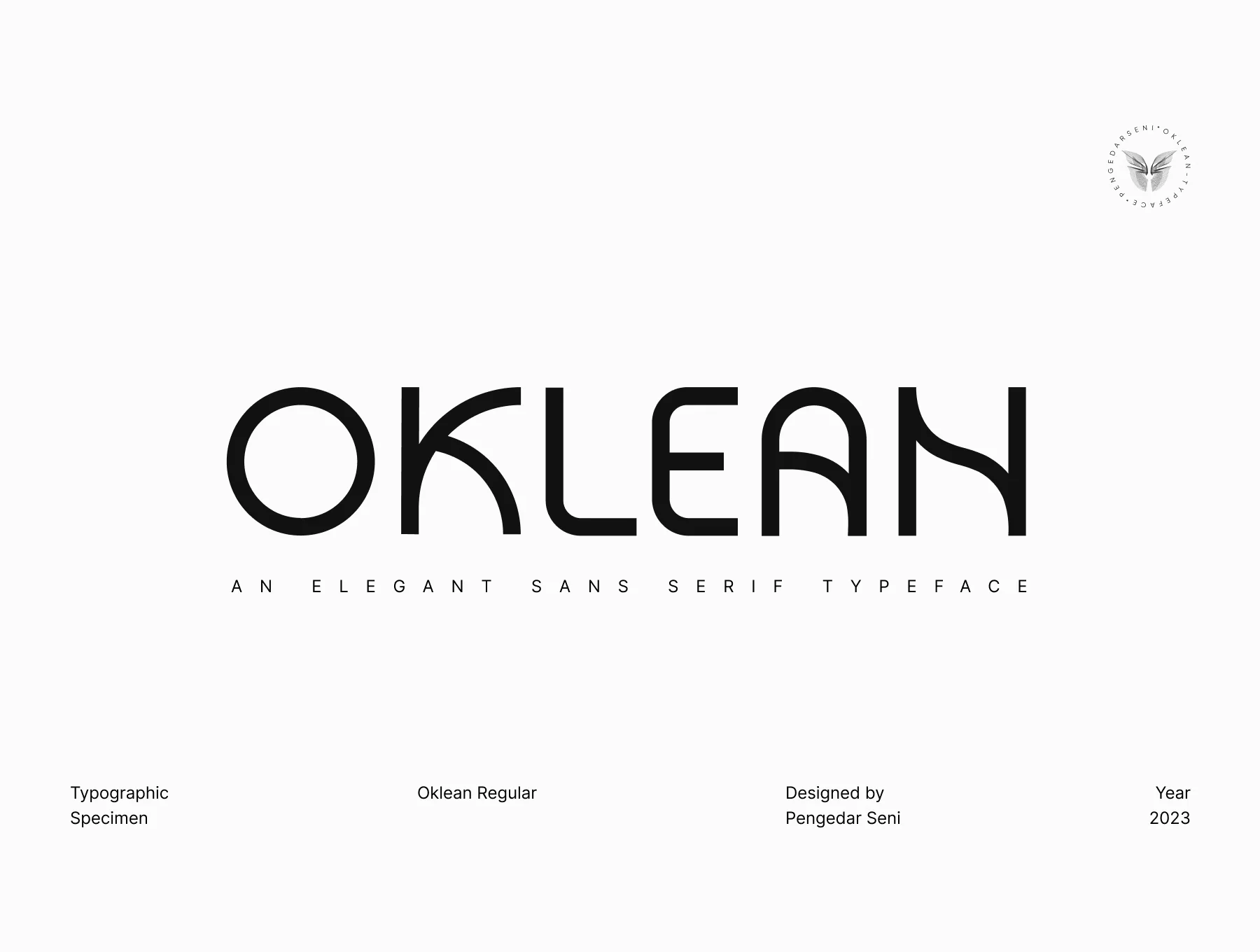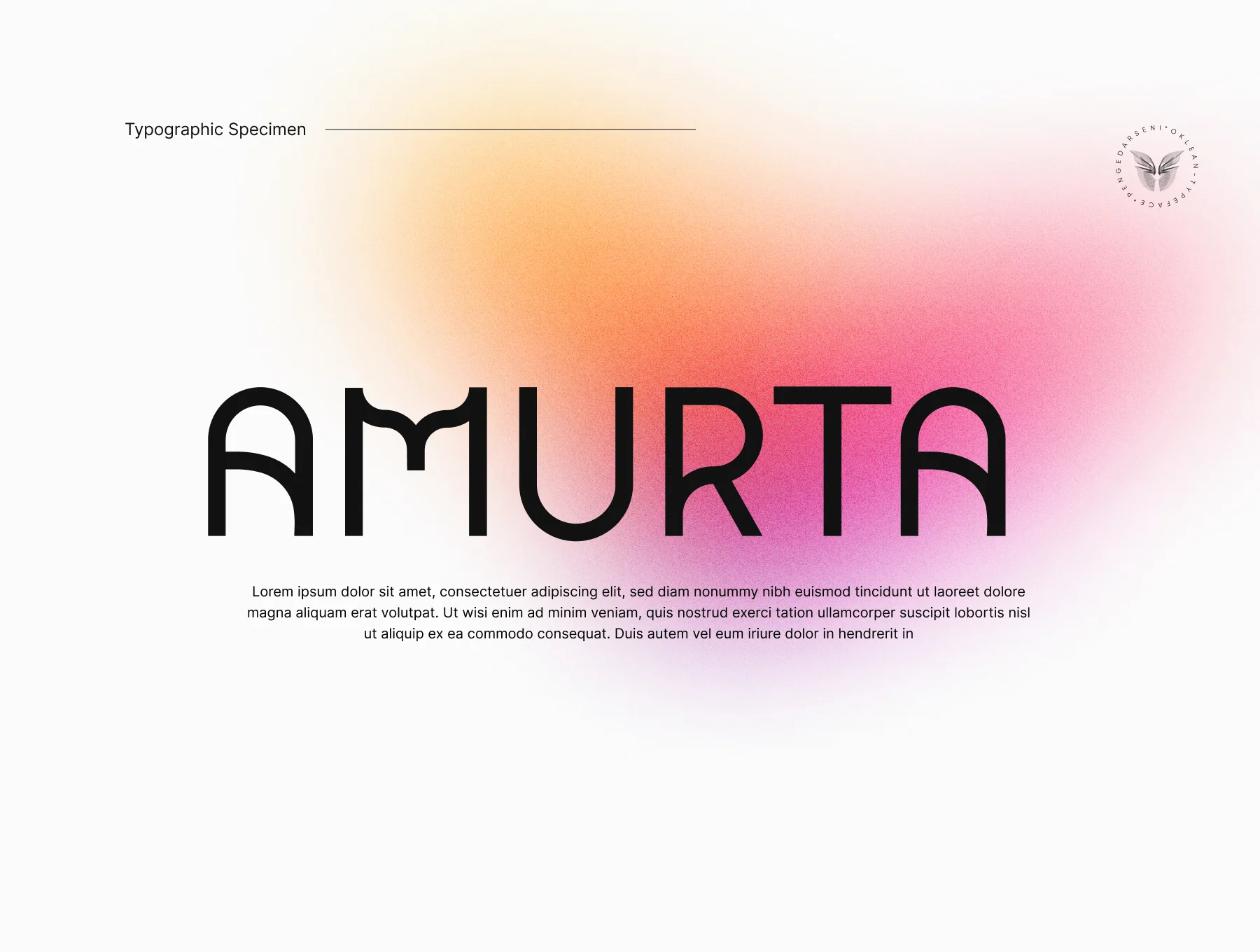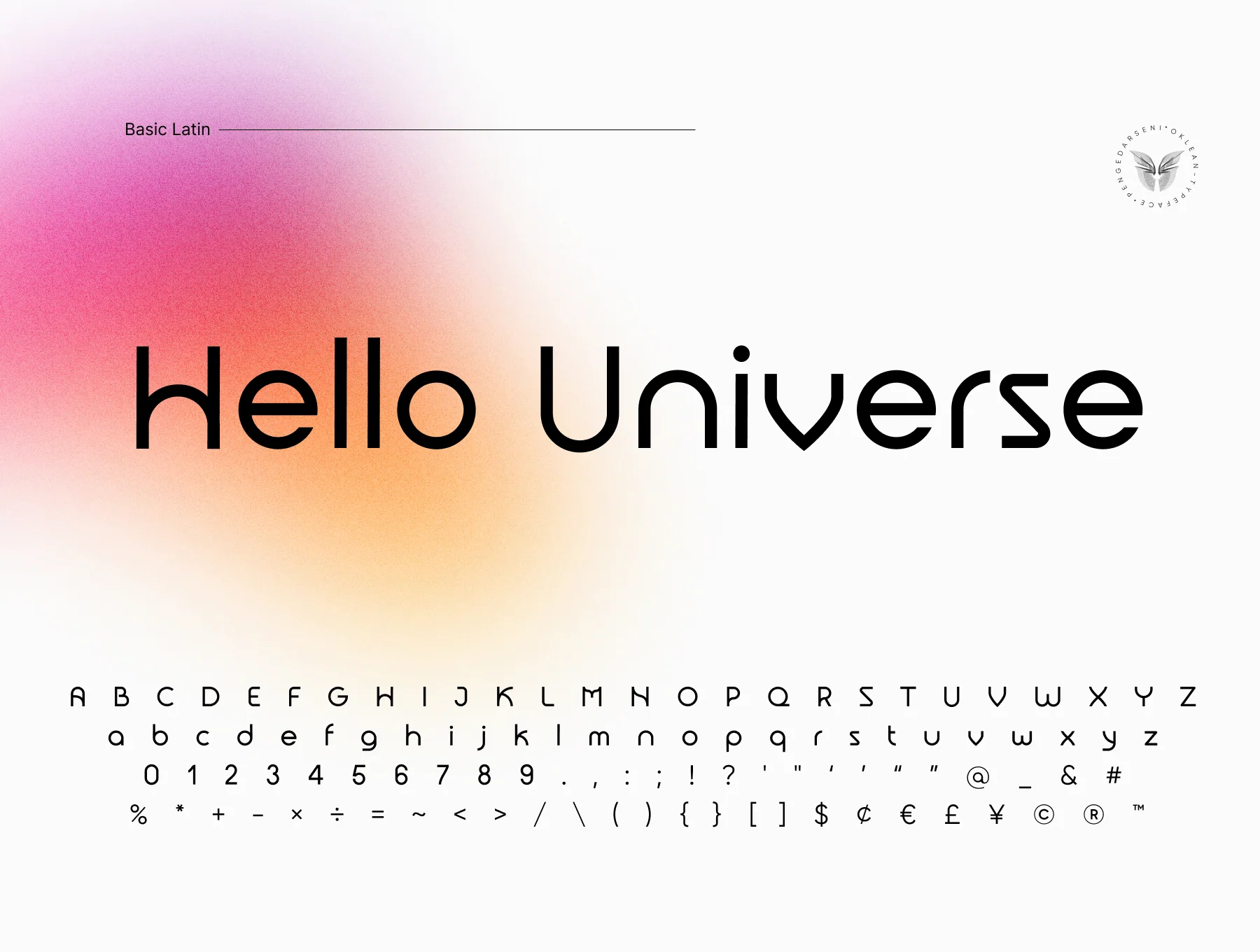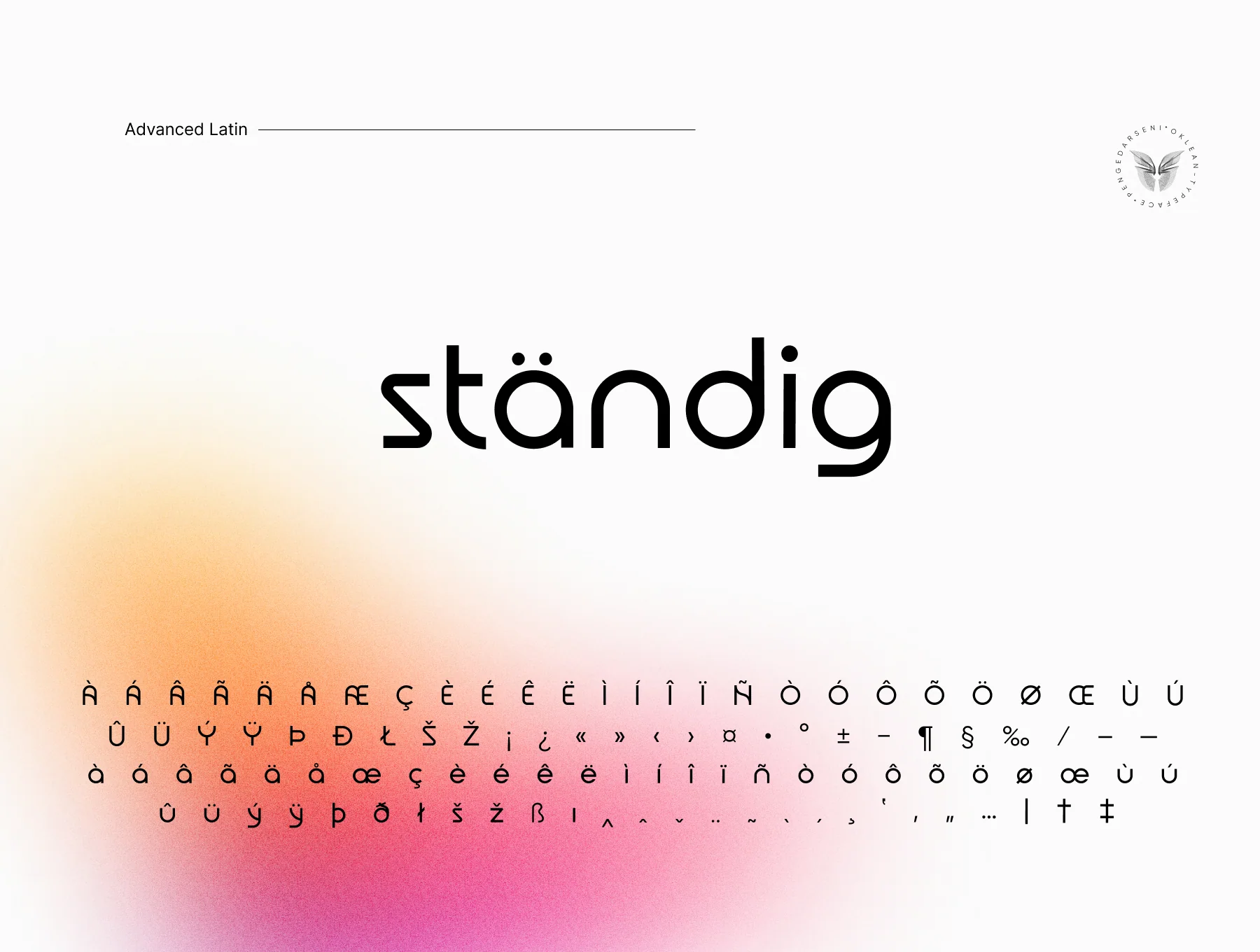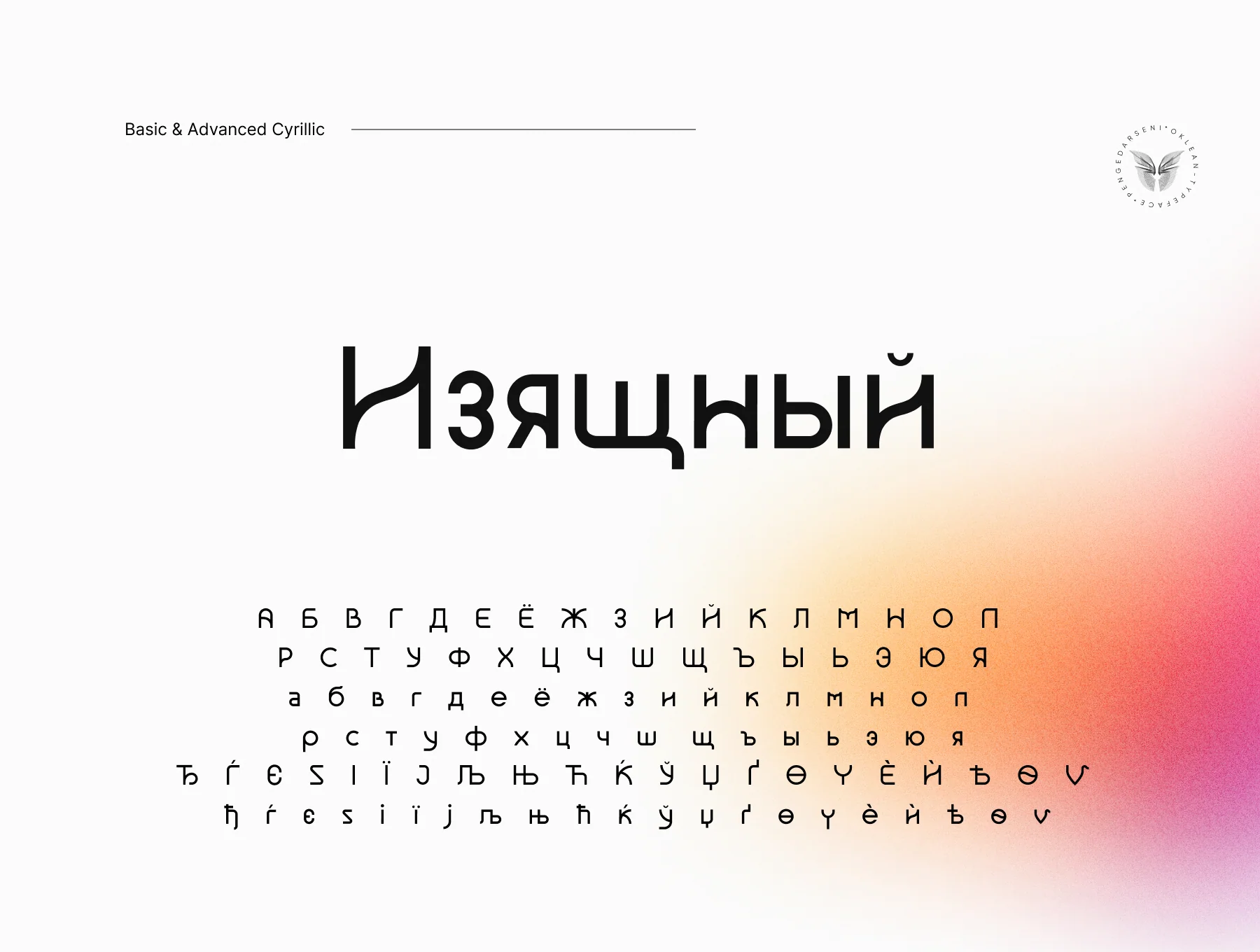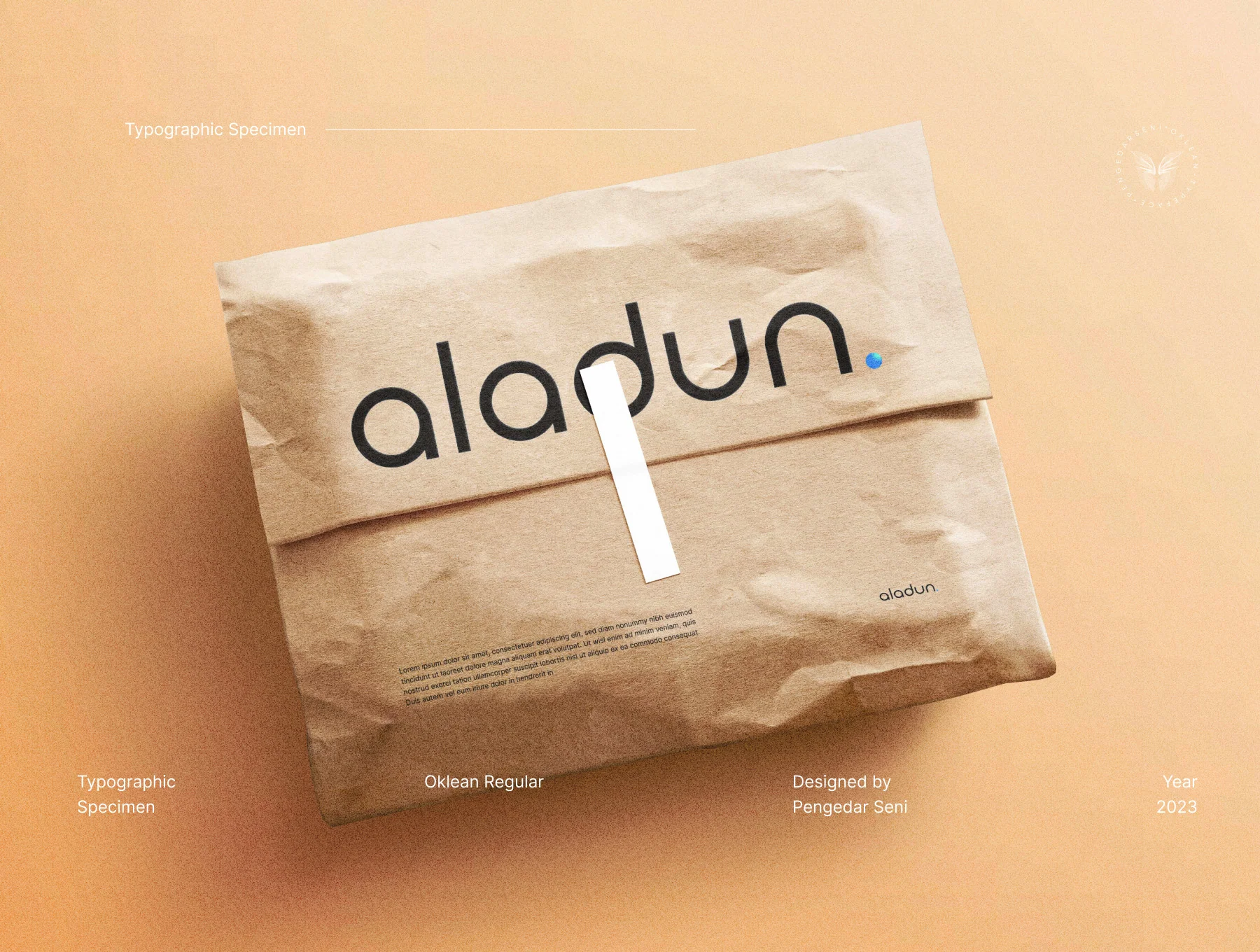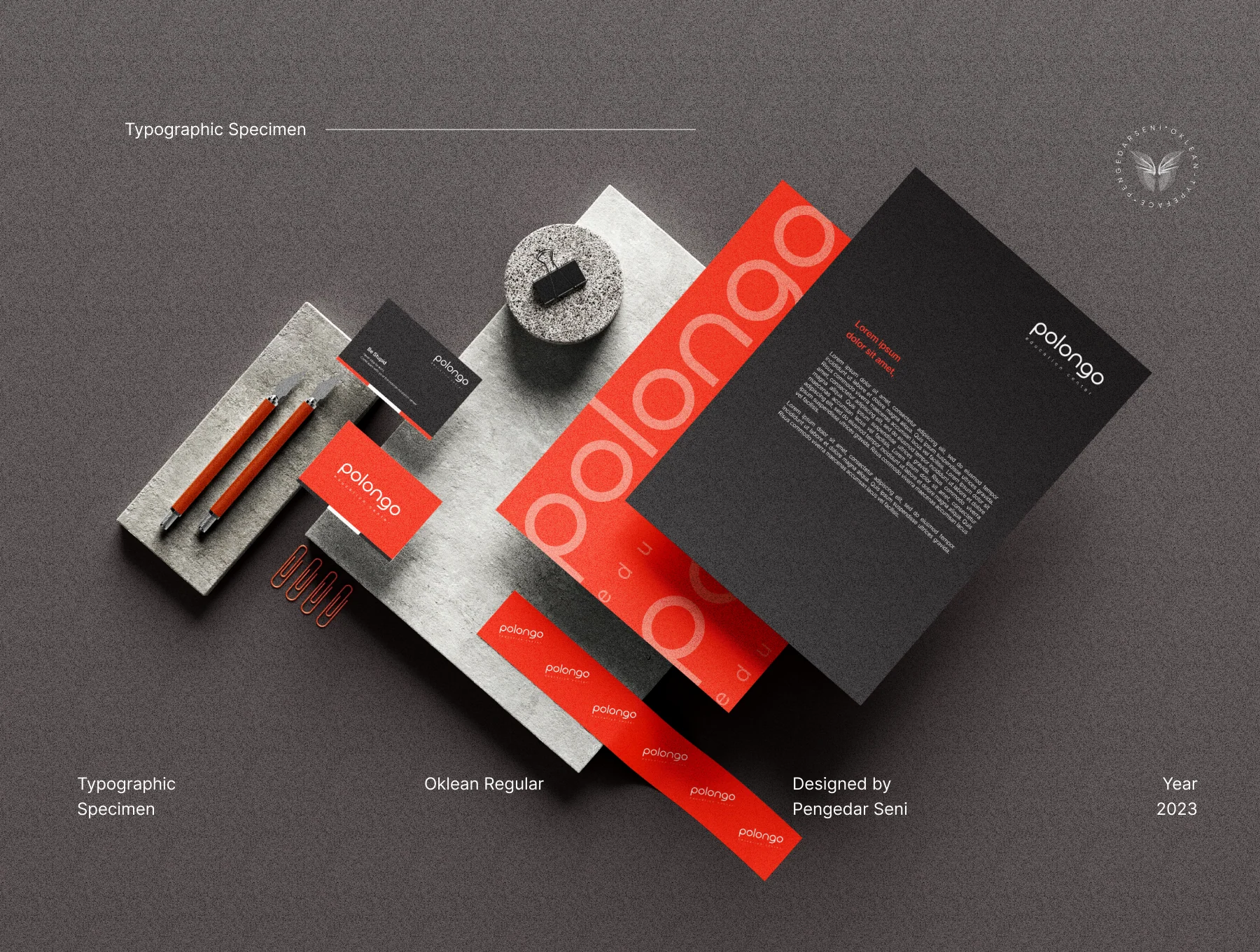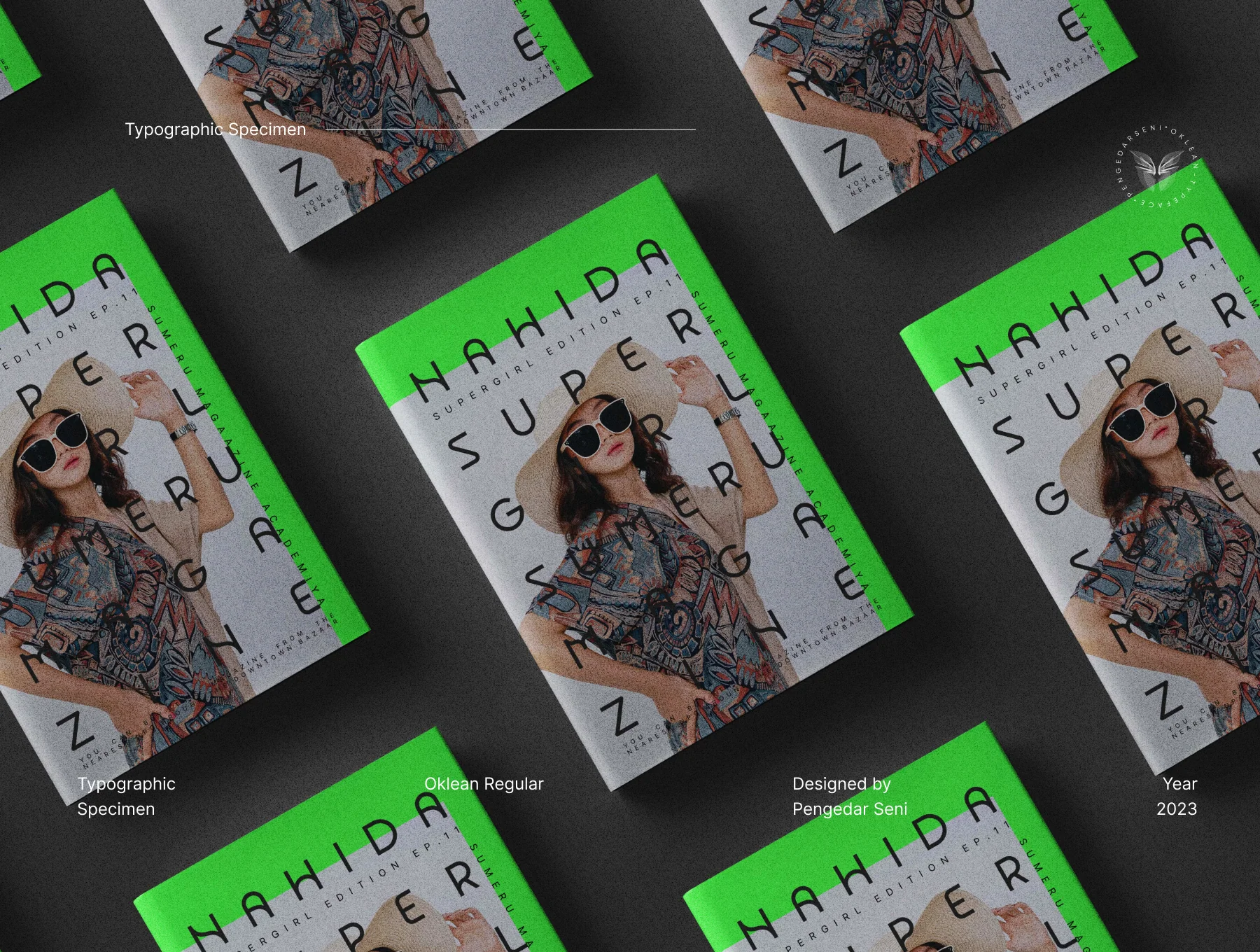
Oklean Sans Serif
Refined Sans Serif Logo Font
Sans serif font style
Oklean Sans Serif is a clean, modern font made for logos and brand identities, not long body text. Its style feels bright, minimal, smart, urban, natural, and balanced. Includes TTF, OTF, WOFF, WOFF2, upper/lowercase, numbers, punctuation, Latin and Cyrillic support, PC/Mac use, and compatibility with Adobe apps and Word. Webfont use and embedding are excluded.